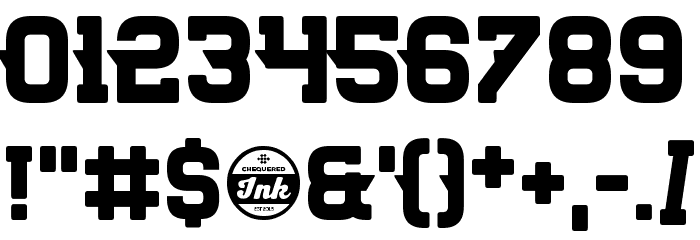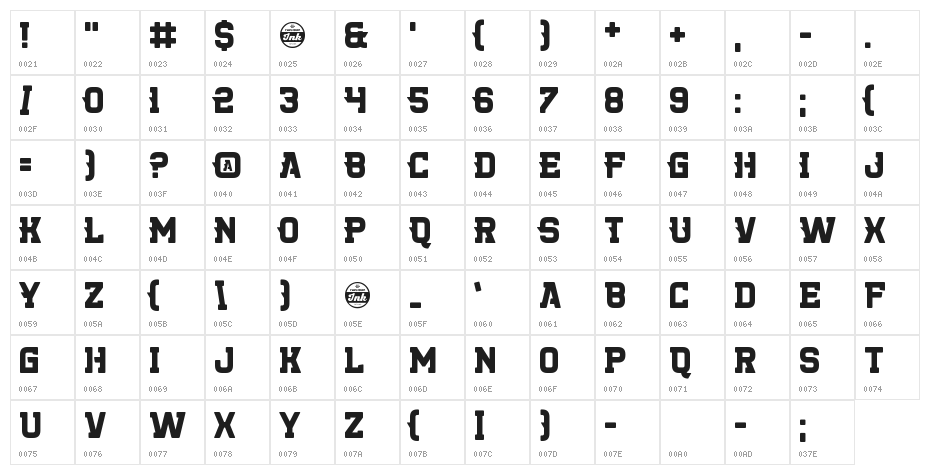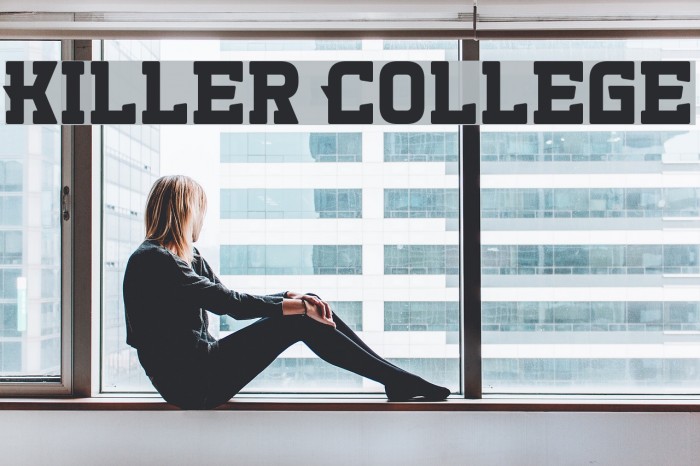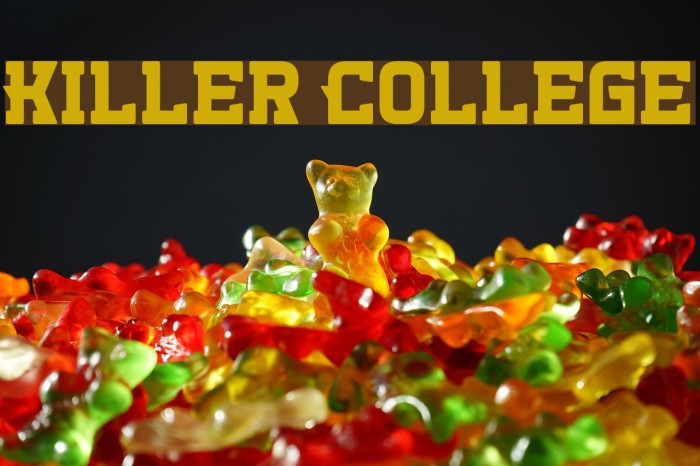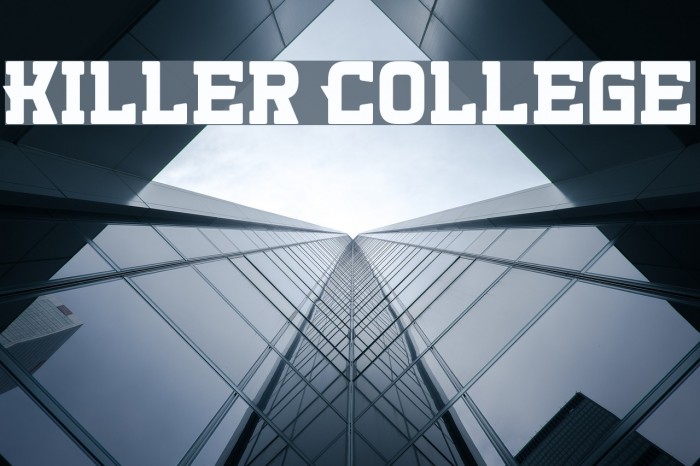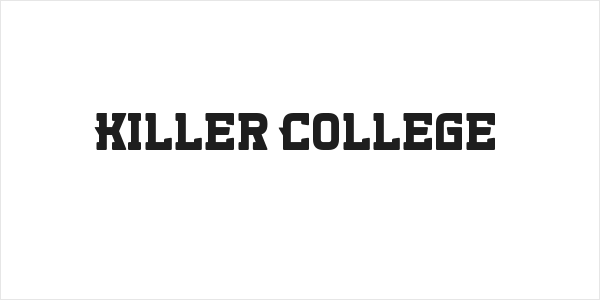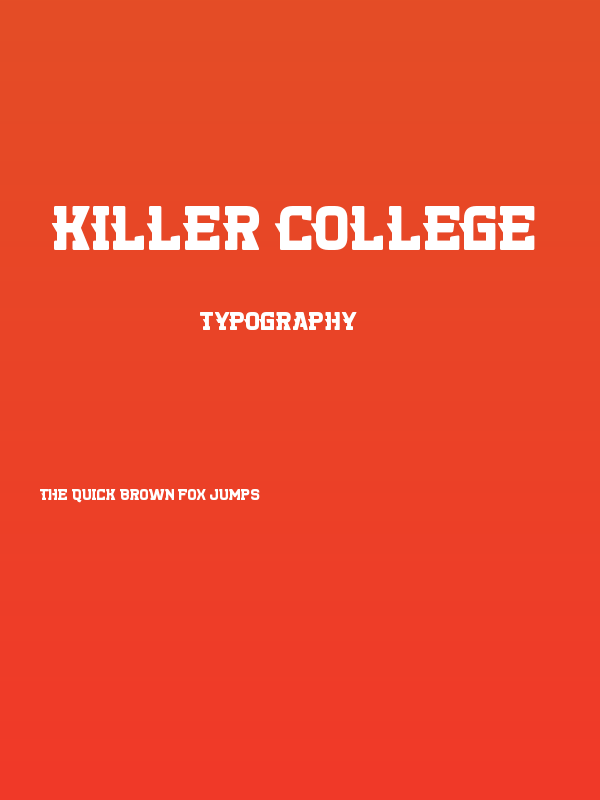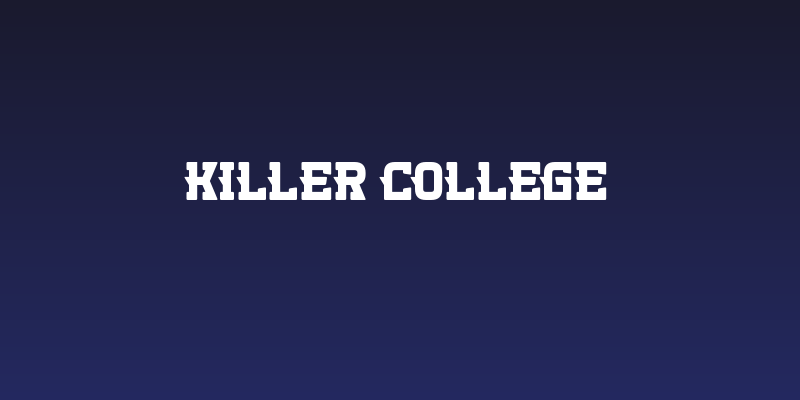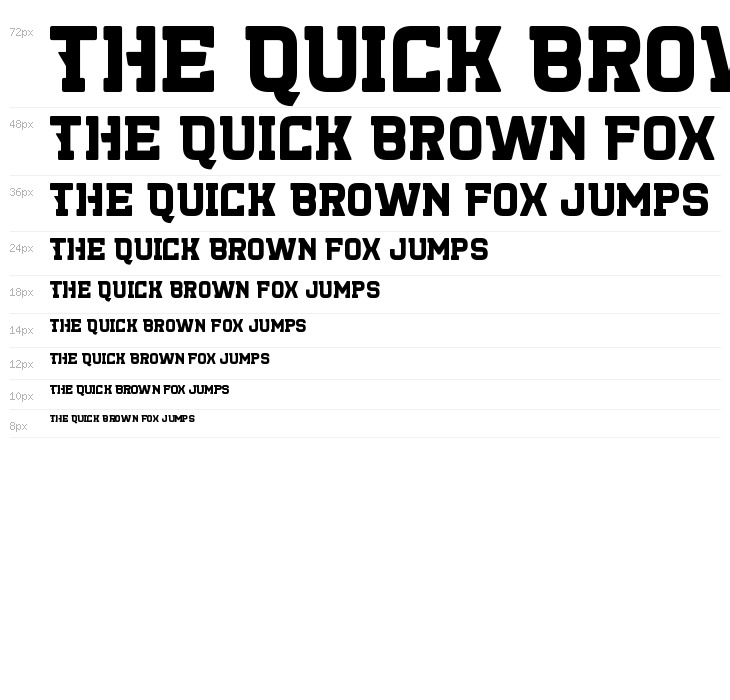
Killer College Font
Killer College Description
This font features a bold and robust design, characterized by thick, blocky letters with a strong presence. The uppercase letters are uniform in height, with a slight slab serif style that adds a touch of vintage flair. The numbers and special characters maintain the same boldness, ensuring consistency across all glyphs. The overall appearance is reminiscent of collegiate or varsity styles, making it ideal for projects that require a strong, impactful typeface. The font's design is both functional and decorative, suitable for a variety of applications.
| Proposed Projects | Ideal for sports team branding, college-themed designs, posters, and merchandise. |